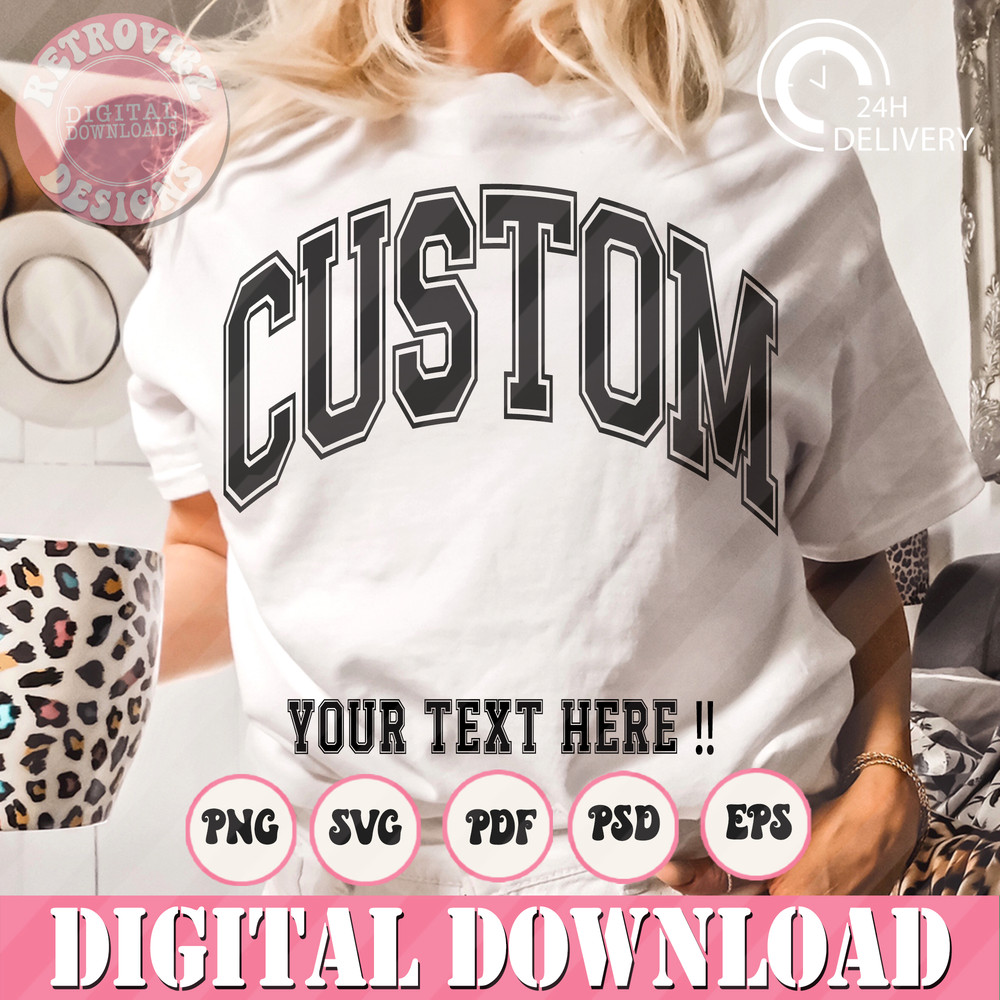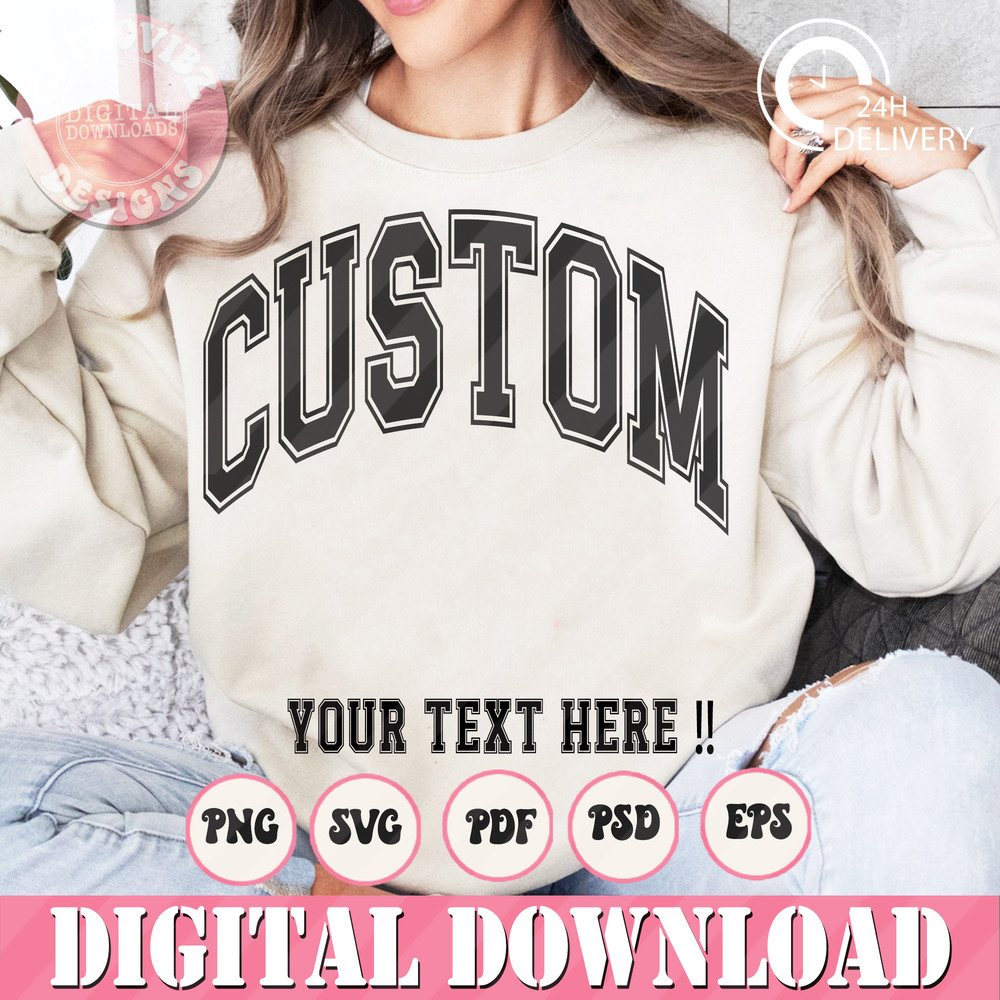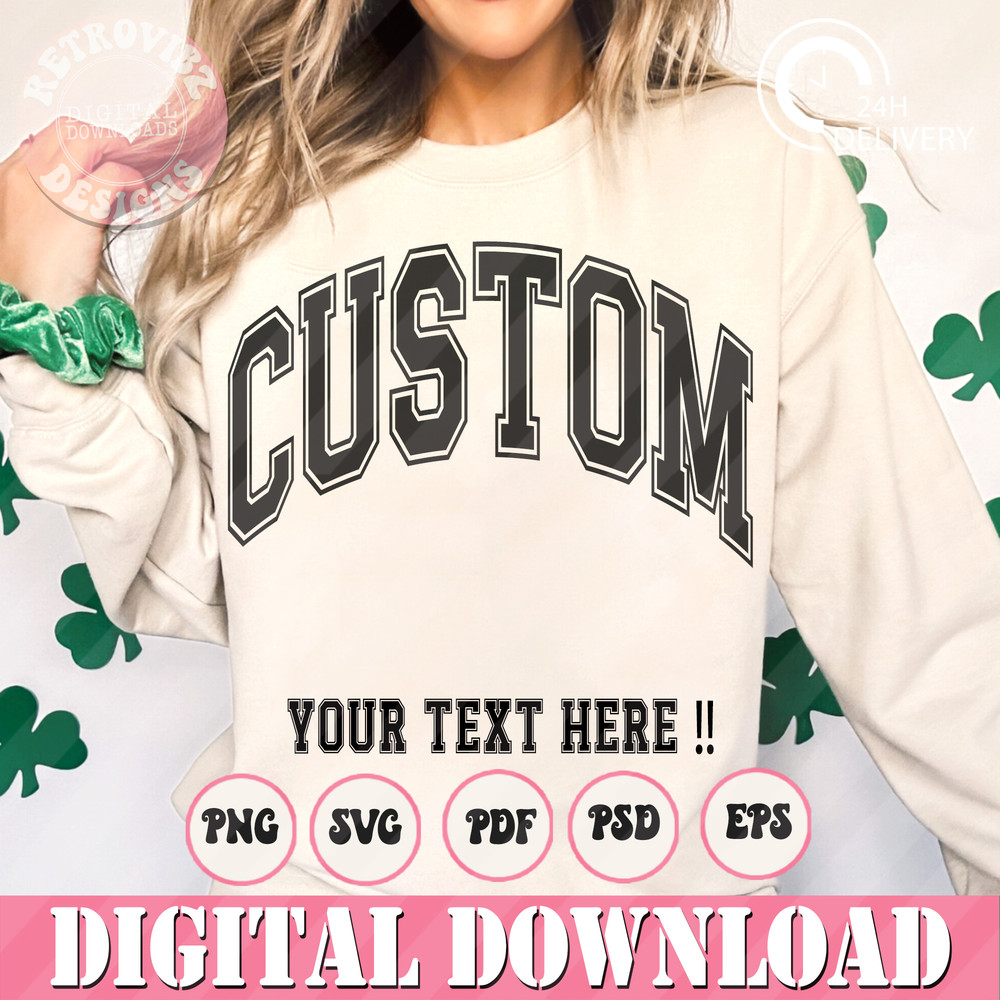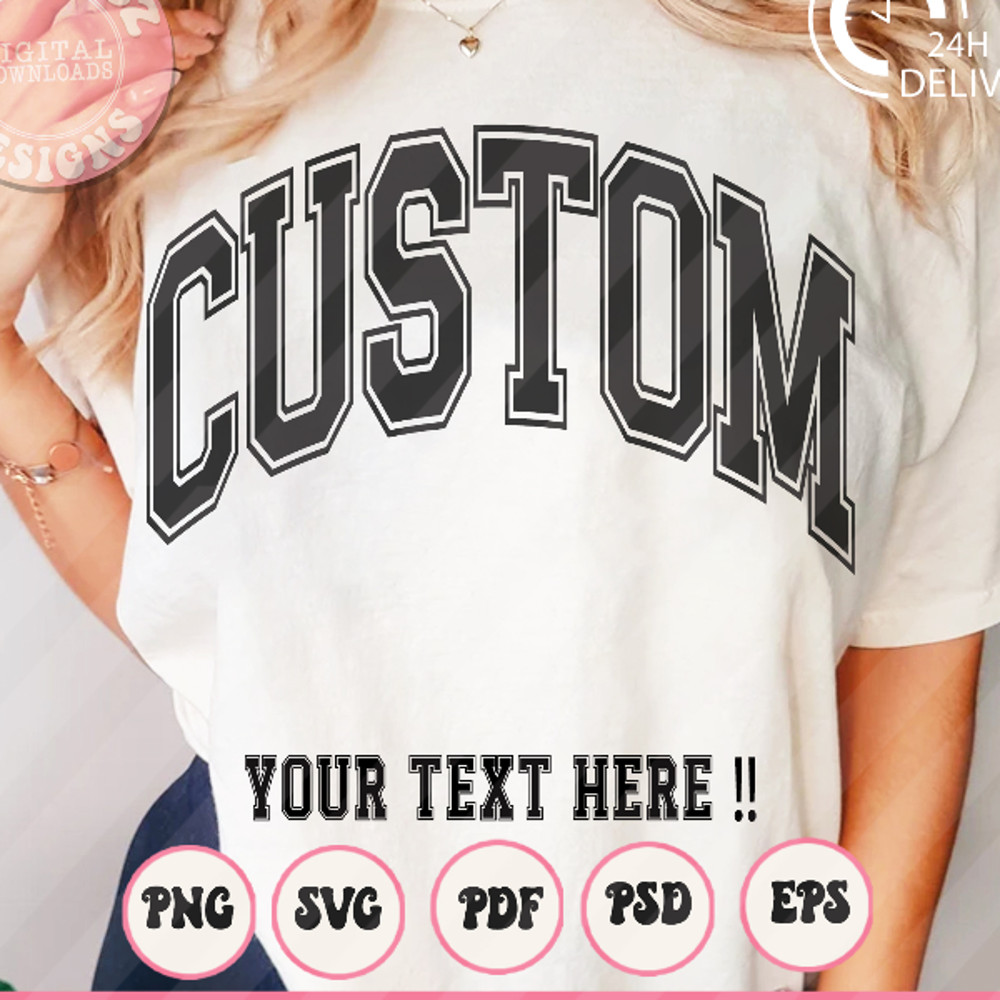
Custom Varsity Svg Png, Custom College Font svg, Customized design, Customize your Text, Sport font svg png, Arched Text
Are you looking for customizing your own texts on a wavy way, then you are on the right place, we will deliver a high quality customized texts.